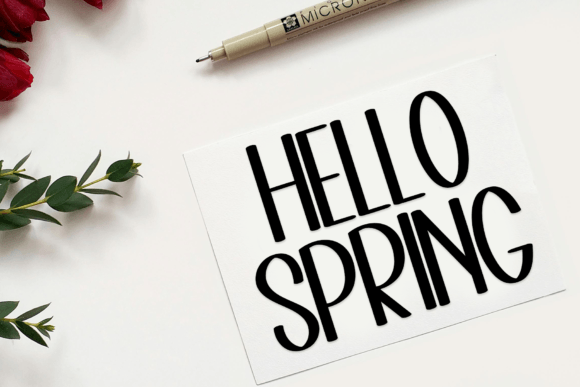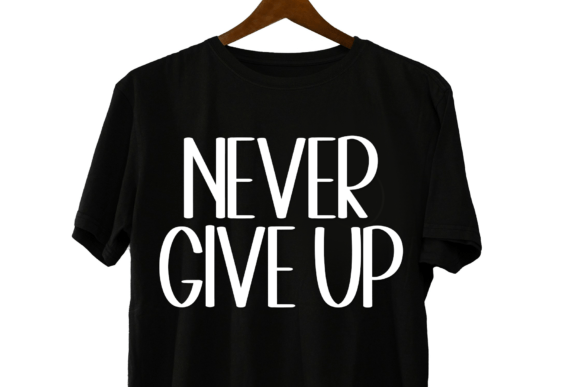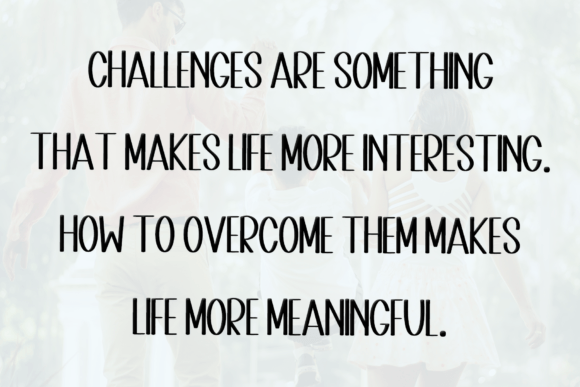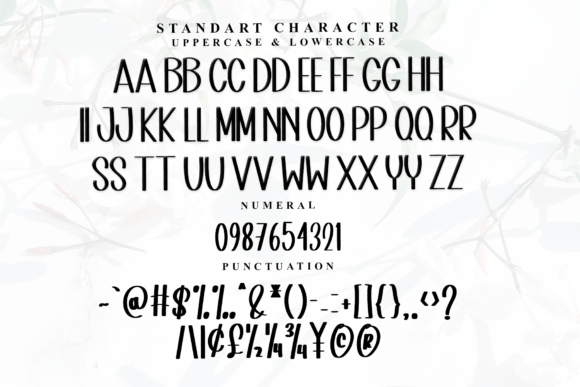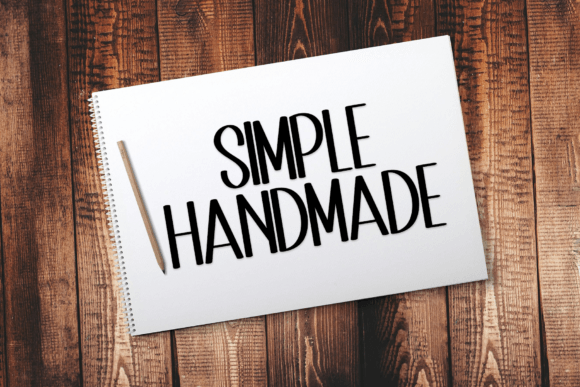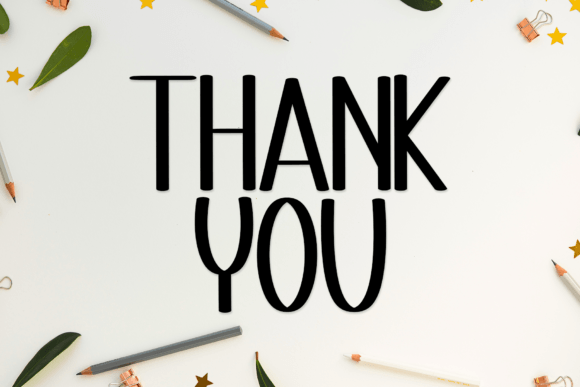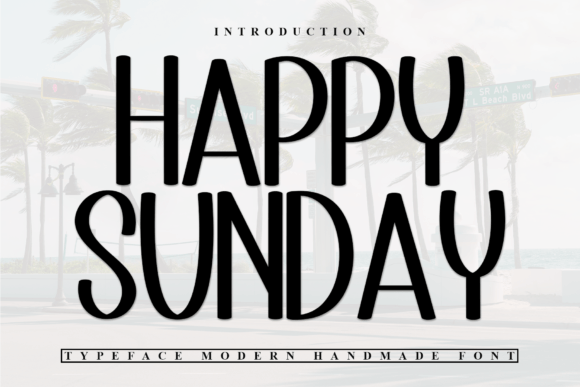
Happy Sunday Font: The Sweet and Friendly Handwritten Font for Your Creative Projects
Are you looking for a font that can add a personal touch to your designs? Look no further than the Happy Sunday Font! This sweet and friendly handwritten font is perfect for designers and crafters who want to create unique and eye-catching projects. With its natural and unique style, Happy Sunday Font is incredibly versatile and can be used for a wide range of designs, from invitations and greeting cards to branding and packaging.
What Makes Happy Sunday Font So Special?
Happy Sunday Font is a one-of-a-kind handwritten font that stands out from the crowd. Its natural and unique style makes it perfect for designers who want to add a personal touch to their projects. The font’s friendly and approachable feel makes it ideal for designs that require a warm and inviting tone. Whether you’re creating a wedding invitation, a birthday card, or a brand identity, Happy Sunday Font is sure to make your project stand out.
Endless Design Possibilities with Happy Sunday Font
The possibilities are endless when it comes to using Happy Sunday Font in your designs. Here are just a few ideas to get you started:
- Invitations and Greeting Cards: Use Happy Sunday Font to create beautiful and unique invitations and greeting cards for special occasions like weddings, birthdays, and holidays.
- Branding and Packaging: Add a personal touch to your brand identity with Happy Sunday Font. Use it for logos, packaging, and marketing materials to create a warm and inviting brand image.
- Digital Art and Illustrations: Happy Sunday Font is perfect for digital art and illustrations. Use it to add text and captions to your artwork, or create stunning typographic designs.
- Crafting and DIY Projects: If you’re a crafter or DIY enthusiast, Happy Sunday Font is a great addition to your design toolkit. Use it to create beautiful and unique titles and headings for your scrapbooking, journaling, and other crafting projects.
Why Choose Happy Sunday Font?
So why choose Happy Sunday Font over other fonts? Here are just a few reasons:
- Unique and Handwritten: Happy Sunday Font is a unique and handwritten font that adds a personal touch to your designs.
- Natural and Friendly: The font’s natural and friendly style makes it perfect for designs that require a warm and inviting tone.
- Versatile: Happy Sunday Font is incredibly versatile and can be used for a wide range of designs, from invitations and greeting cards to branding and packaging.
- Easy to Read: The font is easy to read, even in small sizes, making it perfect for designs that require a lot of text.
Tips for Using Happy Sunday Font
Here are a few tips for using Happy Sunday Font in your designs:
- Pair it with Other Fonts: Happy Sunday Font pairs well with other fonts, so don’t be afraid to experiment with different font combinations.
- Use it in Large and Small Sizes: Happy Sunday Font looks great in both large and small sizes, so use it for headings and body text.
- Experiment with Colors: Happy Sunday Font looks great in a variety of colors, so experiment with different colors to find the one that works best for your design.
In conclusion, Happy Sunday Font is a sweet and friendly handwritten font that is perfect for designers and crafters who want to add a personal touch to their projects. With its natural and unique style, Happy Sunday Font is incredibly versatile and can be used for a wide range of designs. Whether you’re creating invitations, branding materials, or digital art, Happy Sunday Font is sure to make your project stand out. So why wait? Download Happy Sunday Font today and start creating your own unique designs!